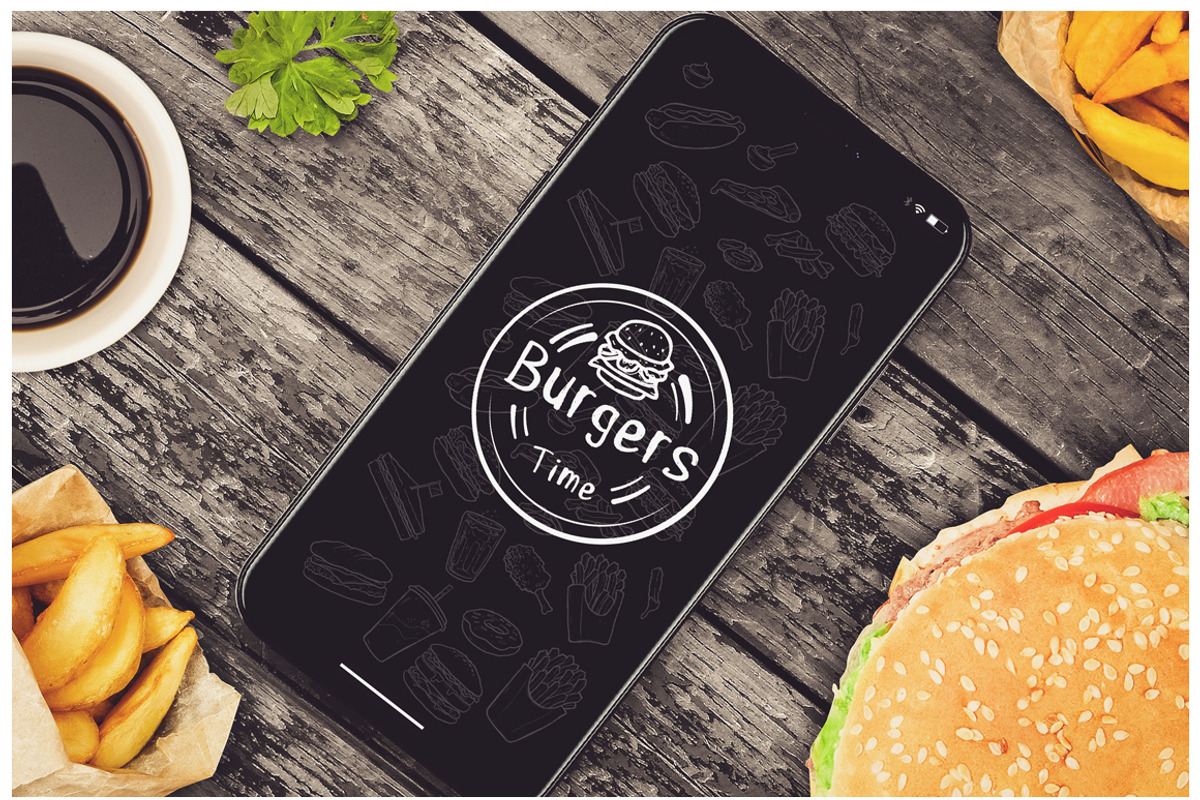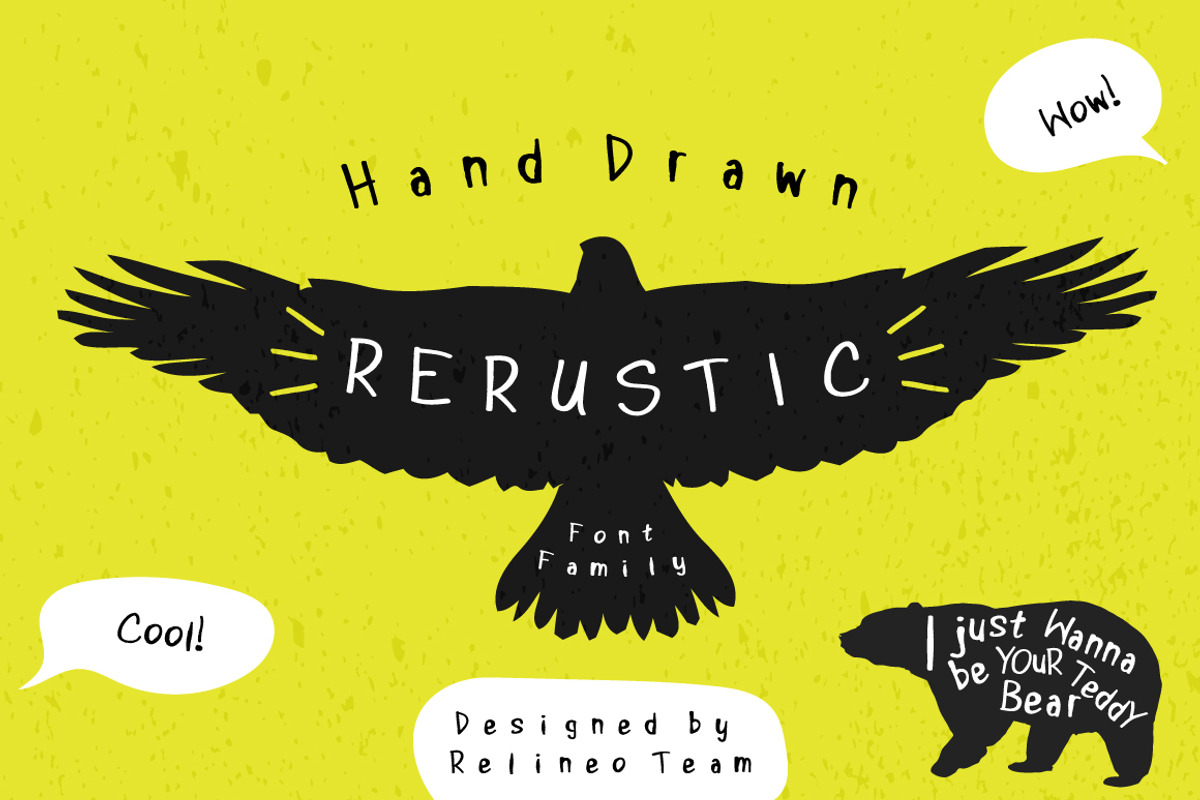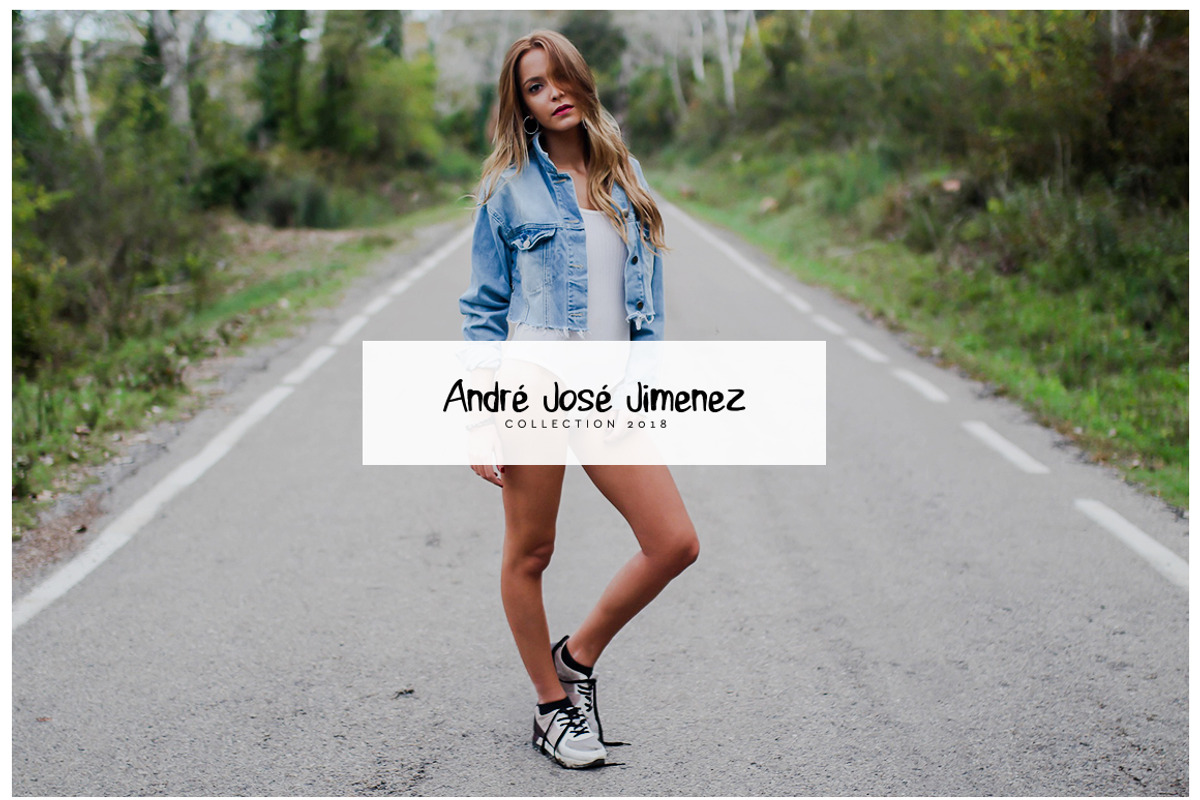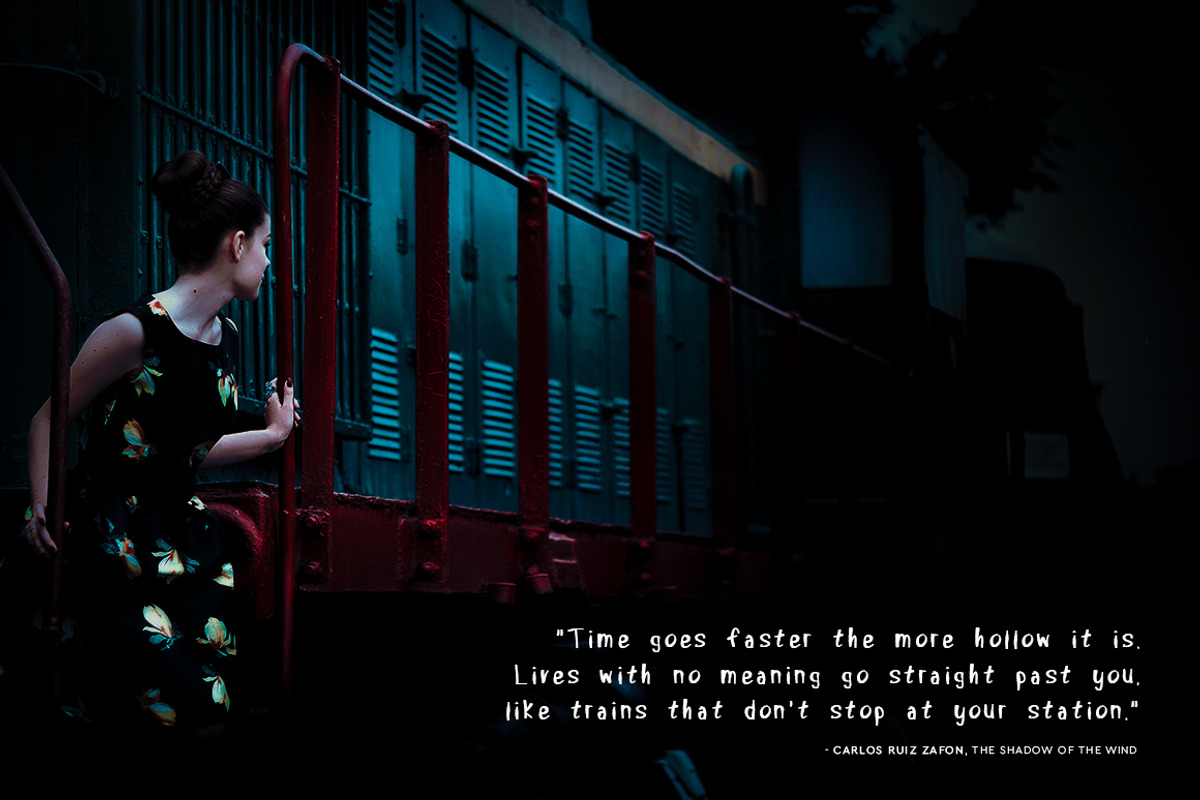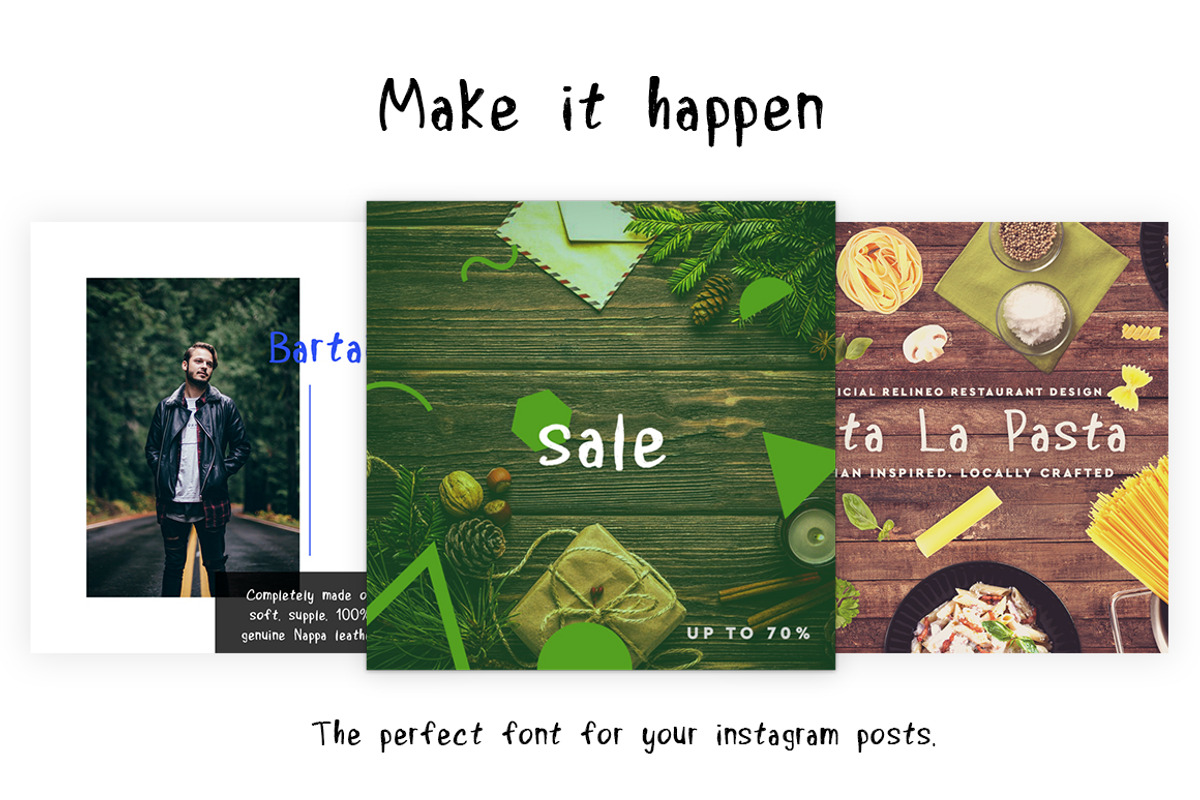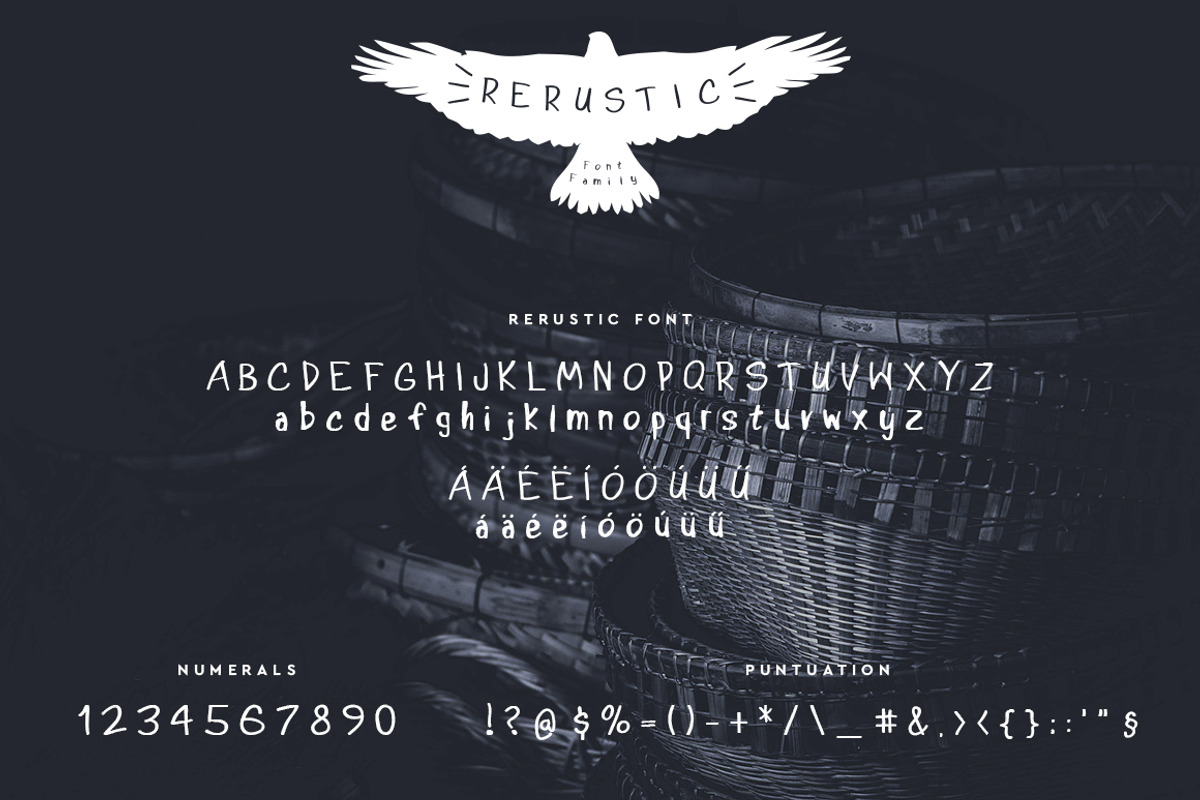
Rerustic Font
A handwritten script font containing upper & lowercase characters, accented characters numerals and a large range of punctuation.
Rerustic Font by relineo.vectors fits naturally into Branding, posters, packaging, typography.